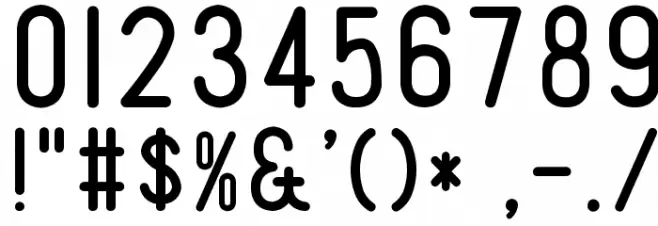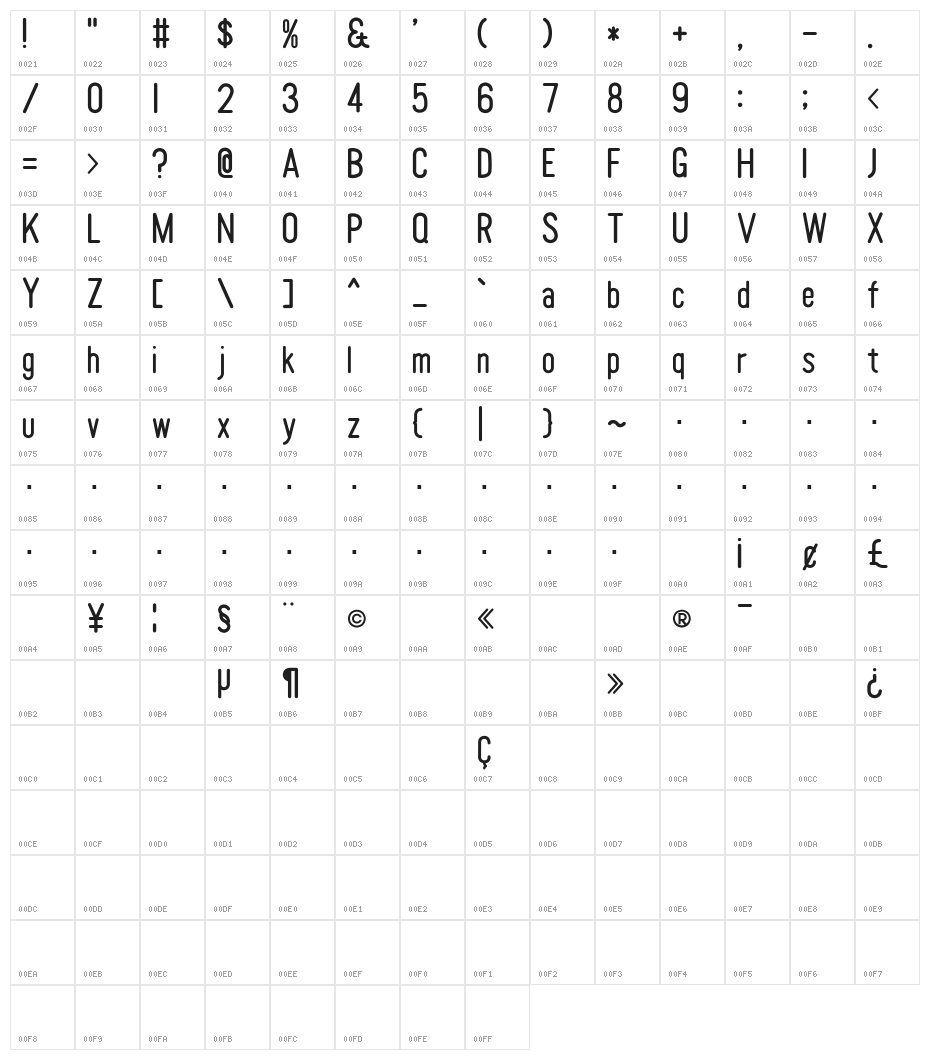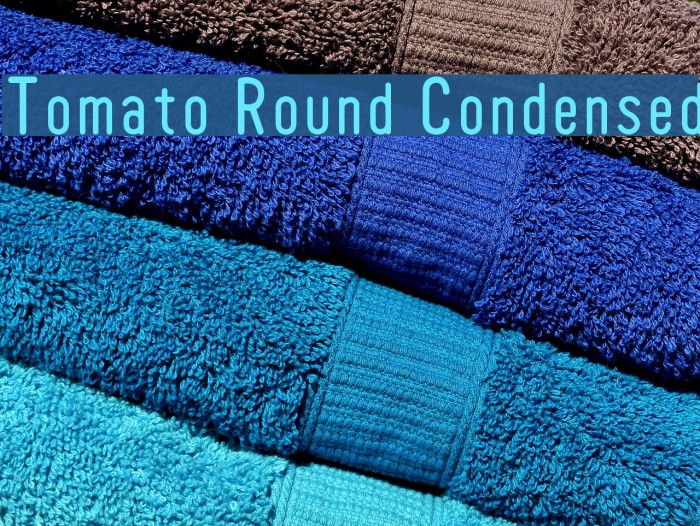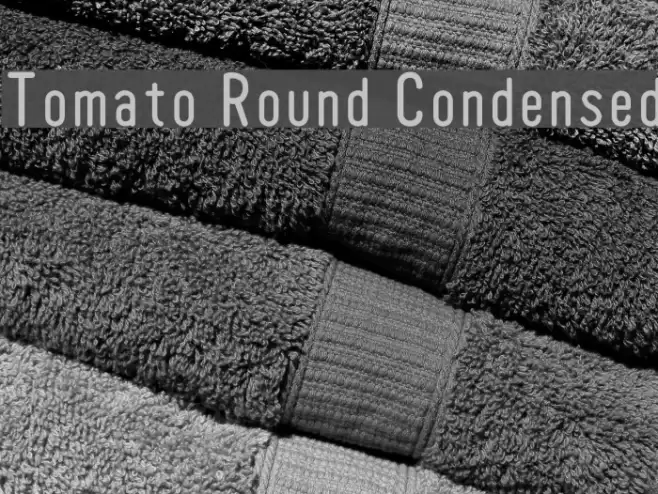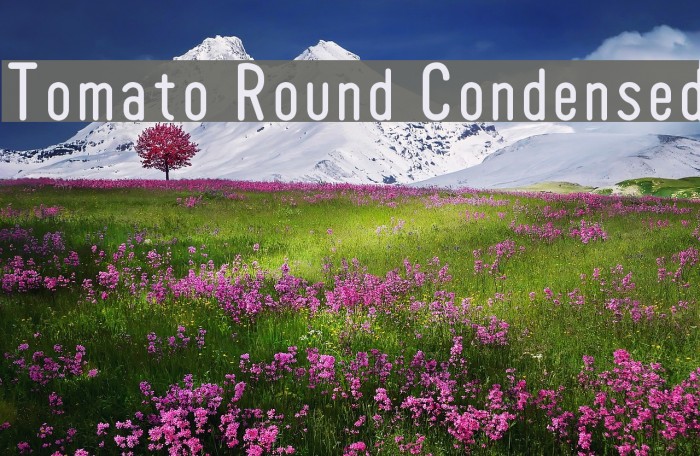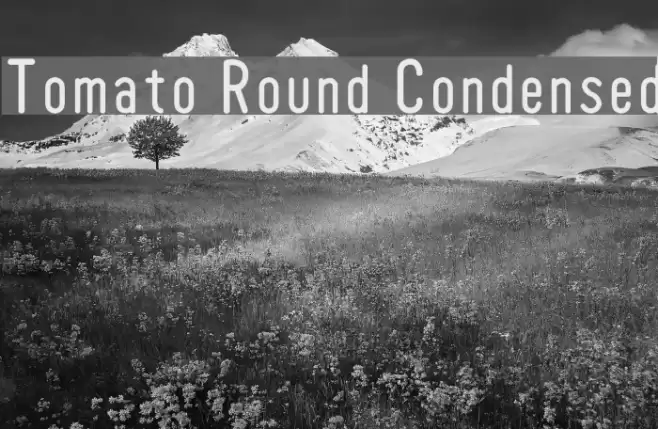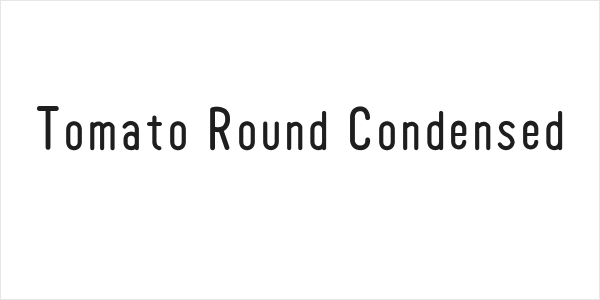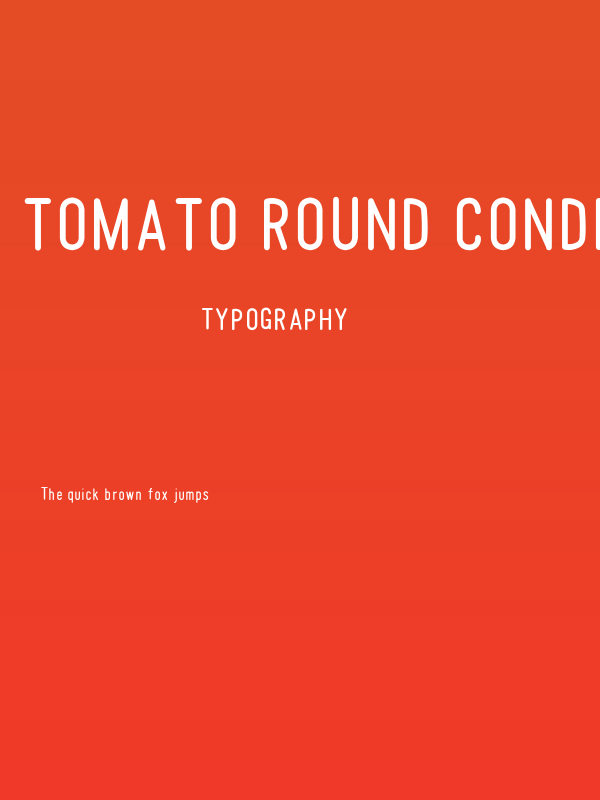
Tomato Round Condensed Font
Tomato Round Condensed Description
This font features a modern, rounded style with a condensed width, giving it a sleek and contemporary appearance. The characters are uniform in stroke width, providing a clean and consistent look across both uppercase and lowercase letters. The numerals and special characters maintain the same rounded and condensed aesthetic, ensuring a cohesive design. Its simplicity and clarity make it highly legible, even at smaller sizes, while the rounded edges add a friendly and approachable feel.